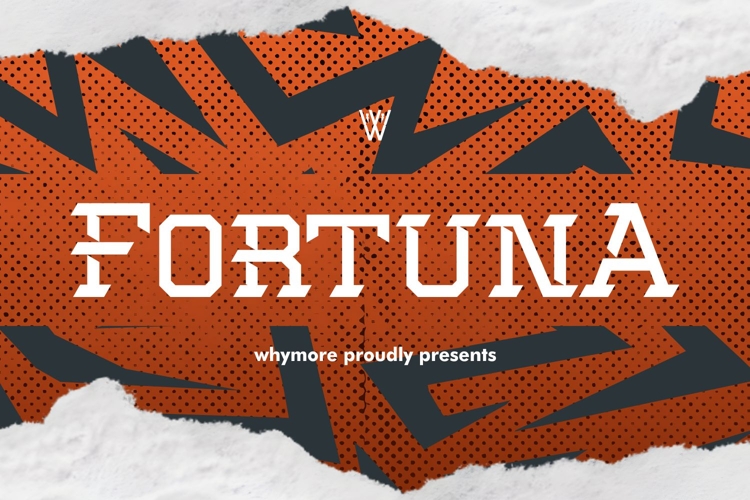
Fortuna Modern Bold Sports Font for Branding & Display Font
Fortuna is a modern sans serif font specifically designed to bring a strong, bold and competitive vibe to every design. With a geometric, bold, and slightly condensed style, Fortuna is perfect for the world of sports branding, masculine logos, stationery mockups, and striking social media content.
This font features a bold display character with a futuristic Y2K touch that remains elegant and professional. From sports billboards, digital promotional media, to luxury branding campaigns, Fortuna is ready to increase the visual impact of your designs.
➡️ Modern & Elegant Logo Design (ElegantLogo, ModernLogo)
➡️ Typography Branding for Sports Club & Streetwear Fashion
➡️ Attractive Stationery & Social Media Feed Mockups
➡️ Magazine Headlines & Promotional Banners
➡️ Sports & action themed YouTube Video Display or Reel
➡️ Uppercase Letters
➡️ Numbers & Punctuation
➡️ Alternate Characters
➡️ Multilingual Support
➡️ Brand Power - Fortuna creates a perception of power & dominance that is much needed for sports logos, startups, and fashion brands.
➡️ High Visual Impact - Its condensed and bold design makes each letter stand out in a crowded space.
➡️ On-trend - Combines Y2K, geometric, and sans serif styles in one elegant and contemporary package.
➡️ Emotional - Fortuna brings to life the spirit of competition and energy through its typography, making it a powerful visual storytelling tool.